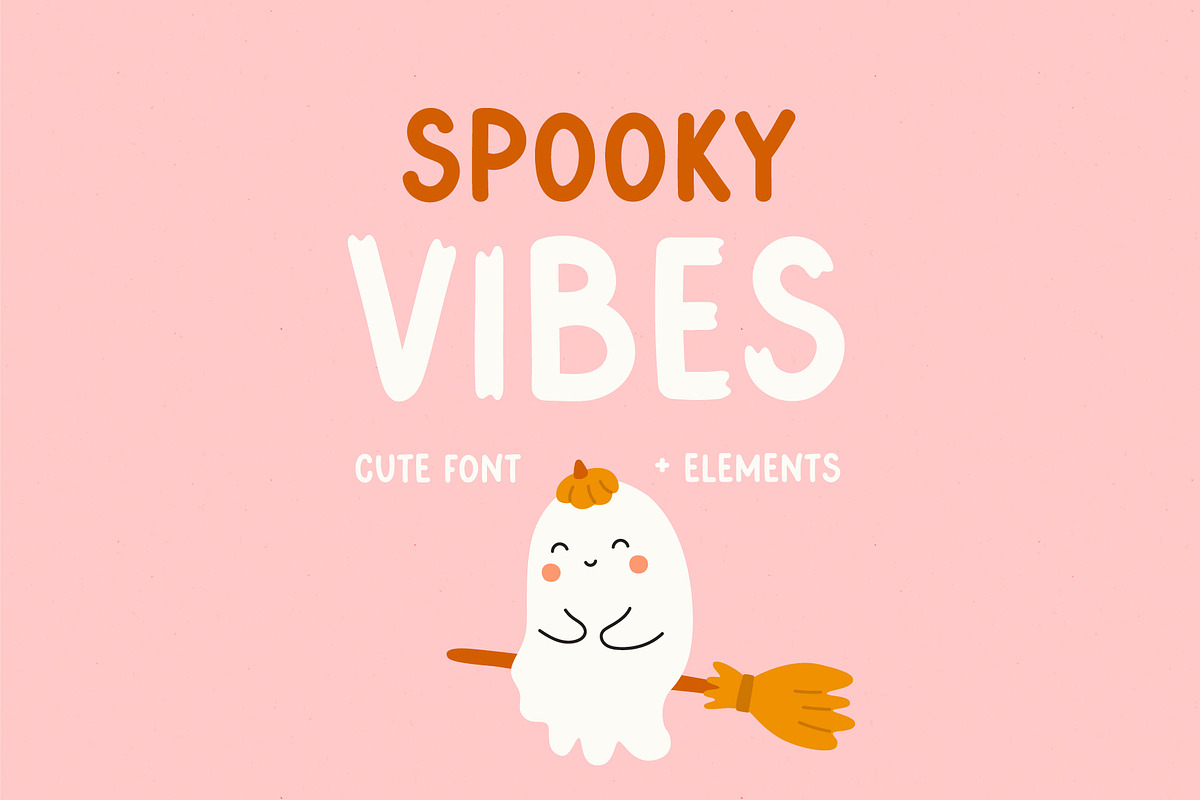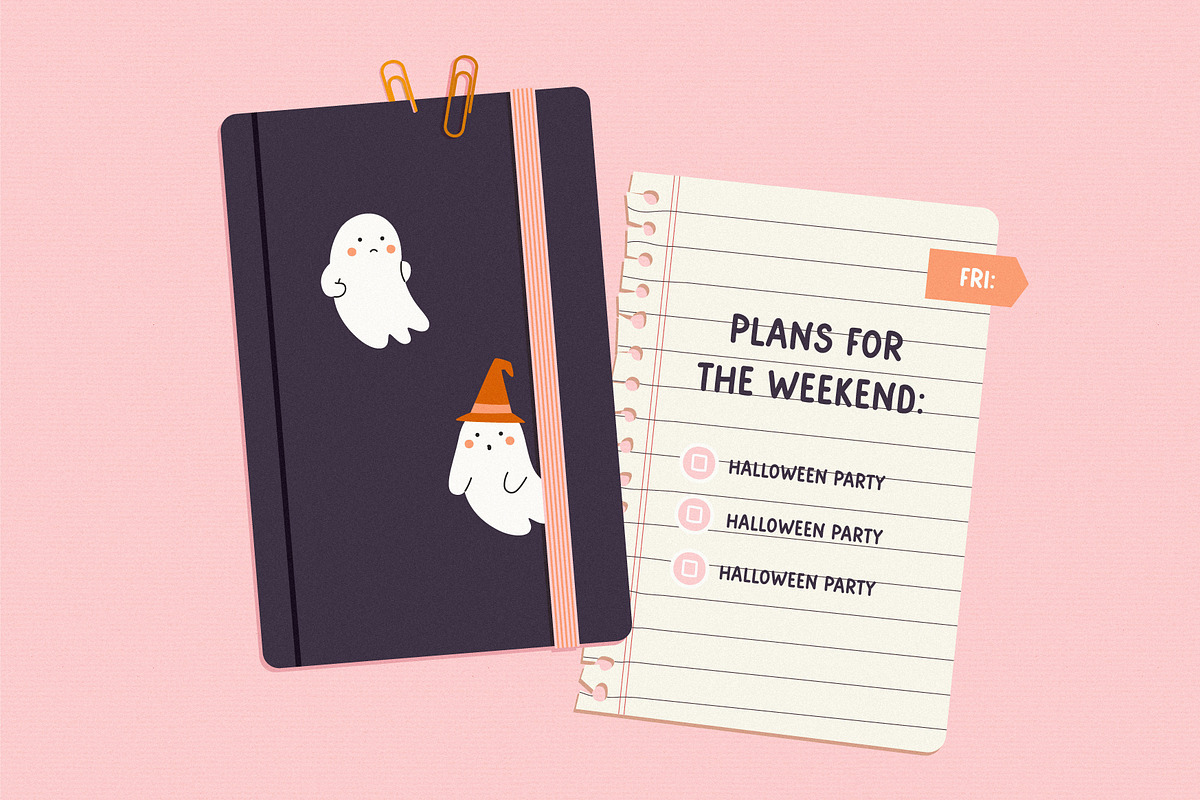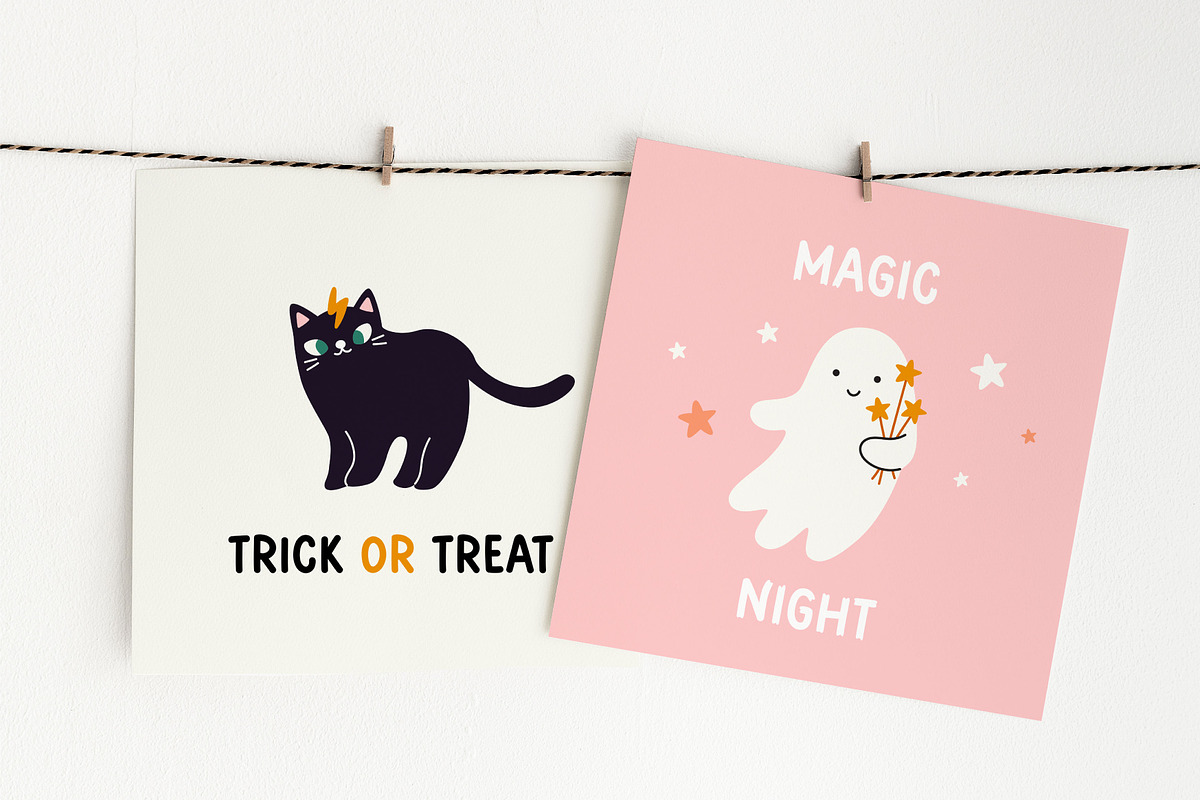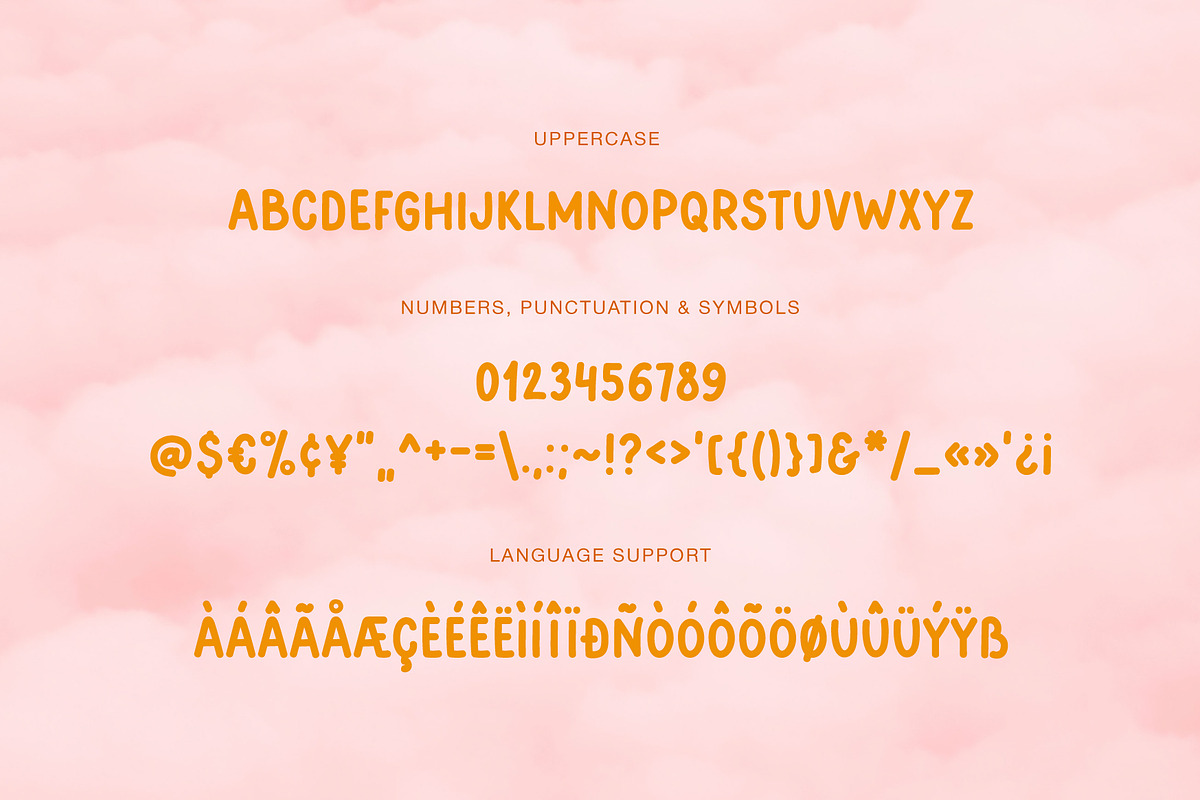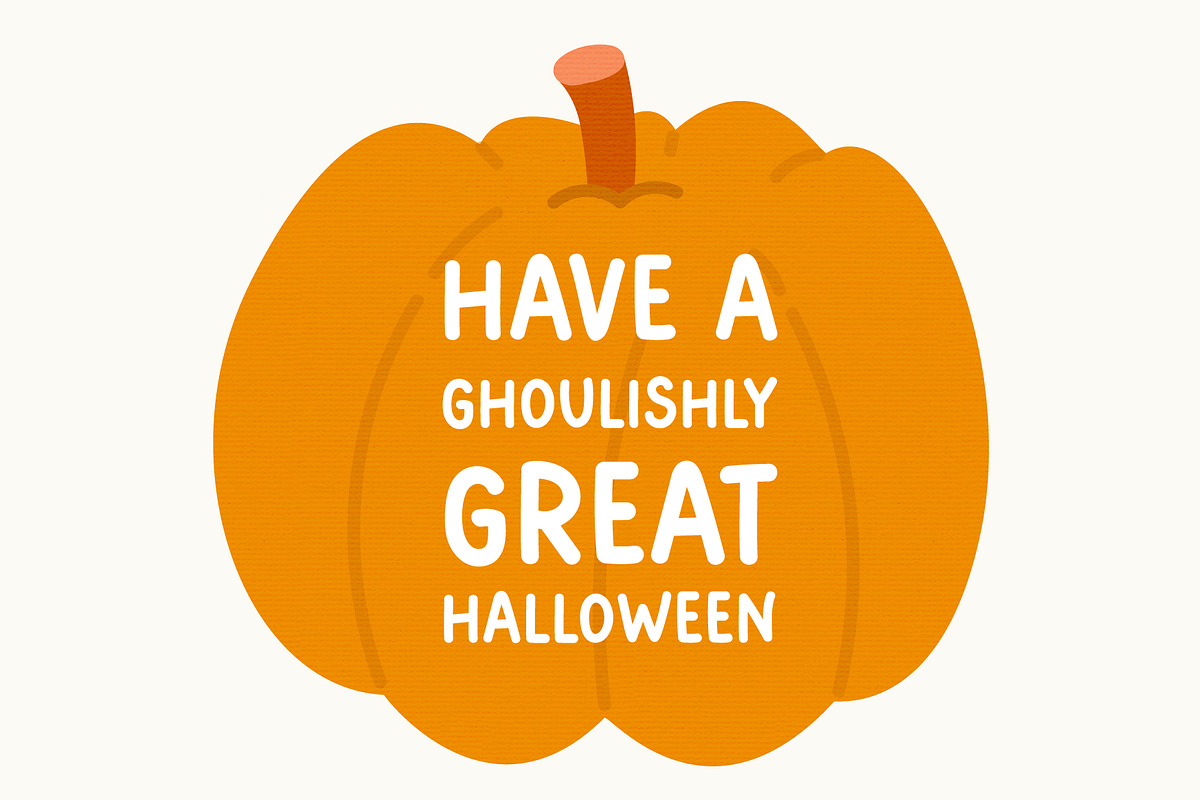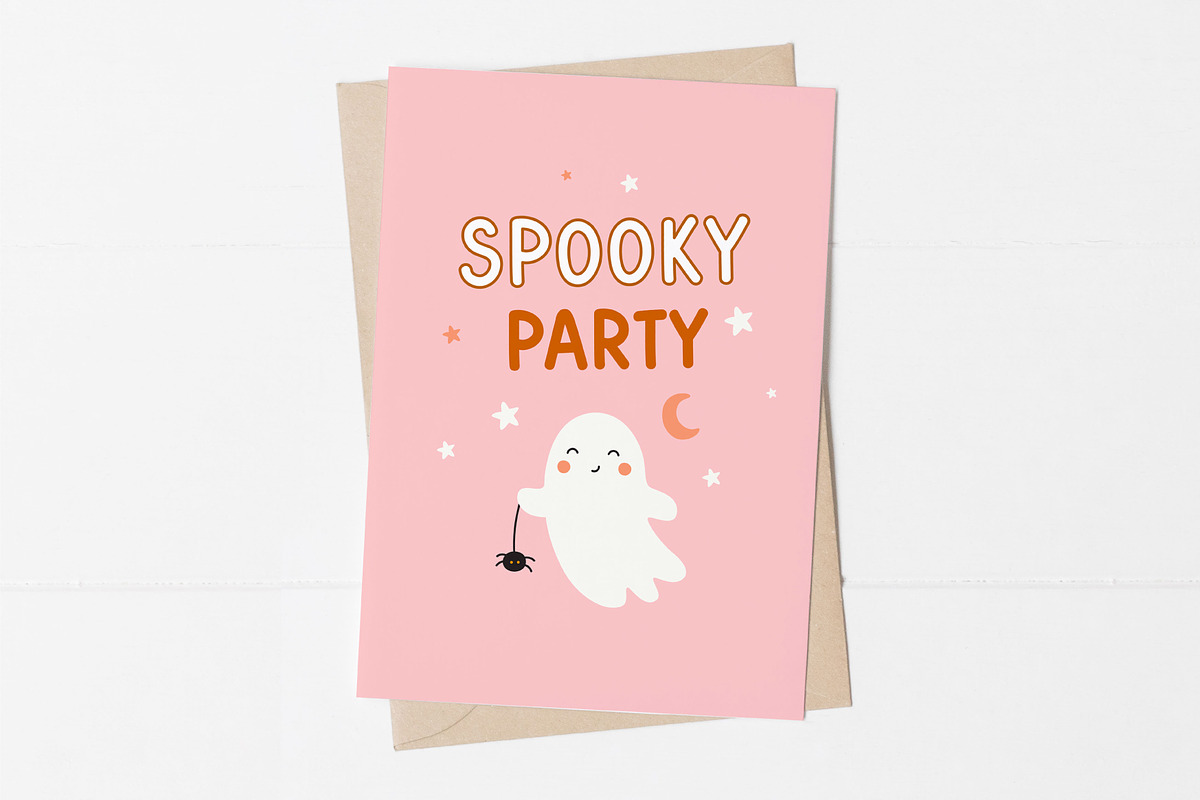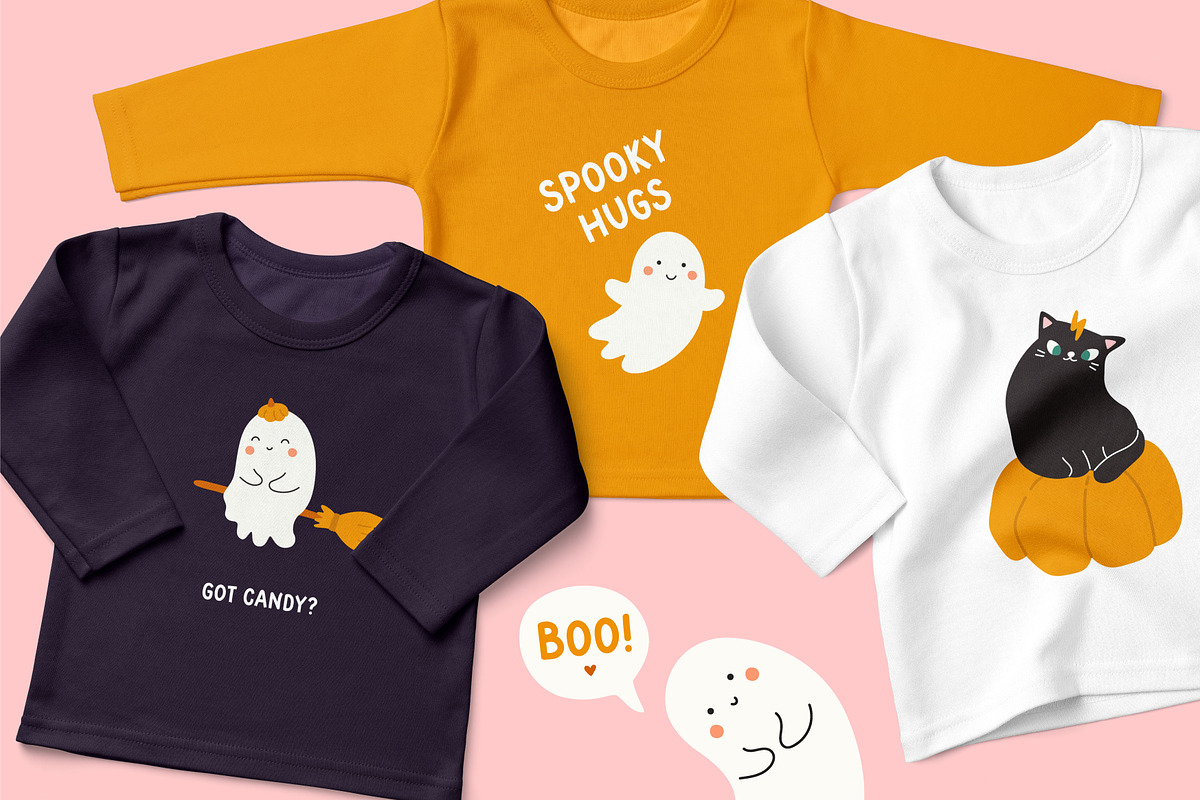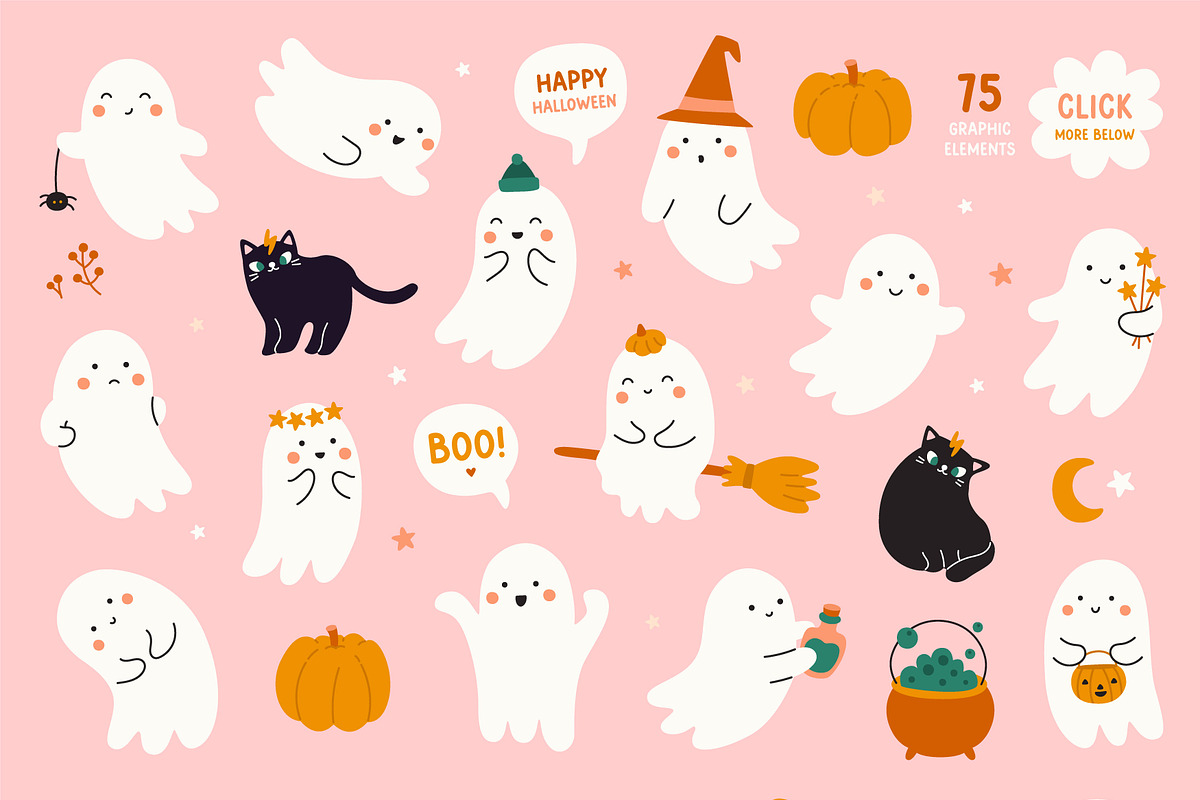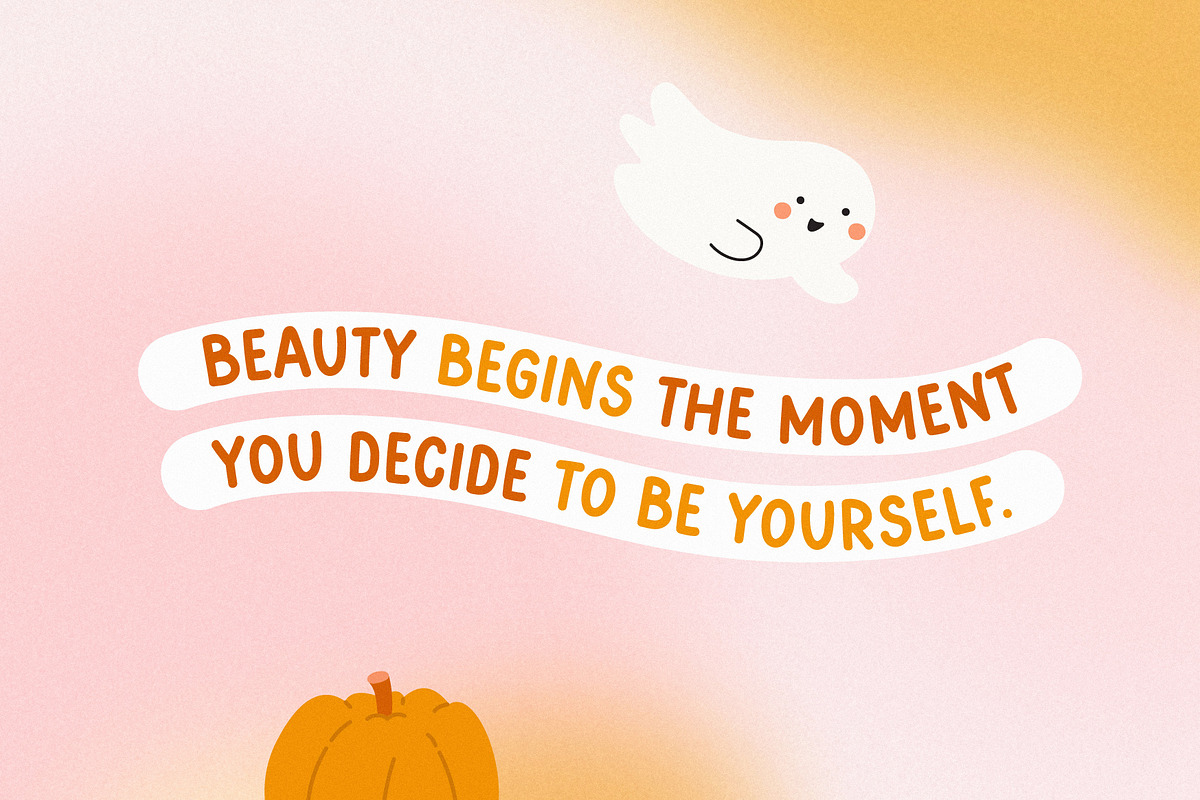
Spooky Vibes | Cute font
Spooky Vibes - cute hand-lettered typeface. Perfect for quotes, greeting cards, invitations, posters, business cards, presentations and more.